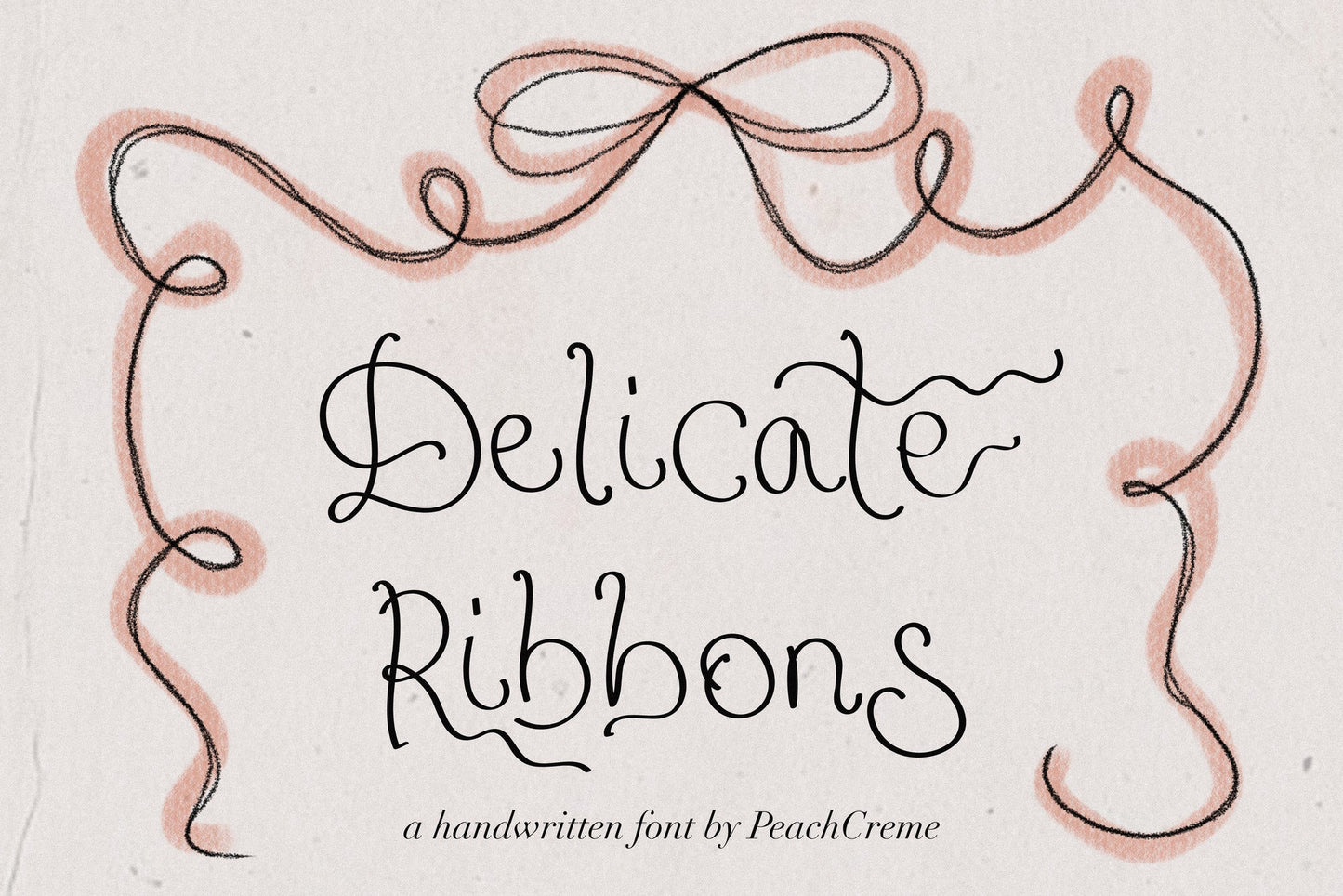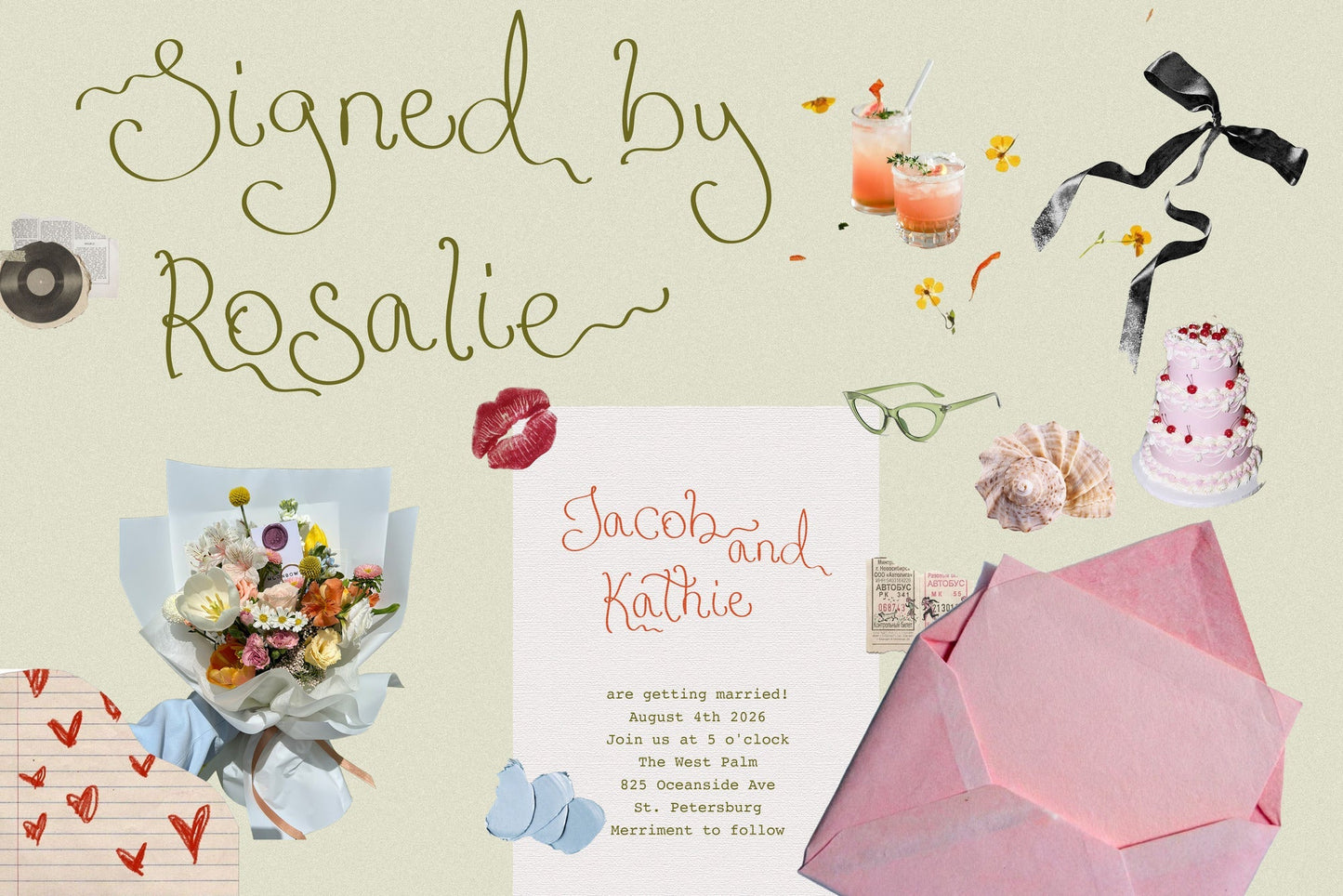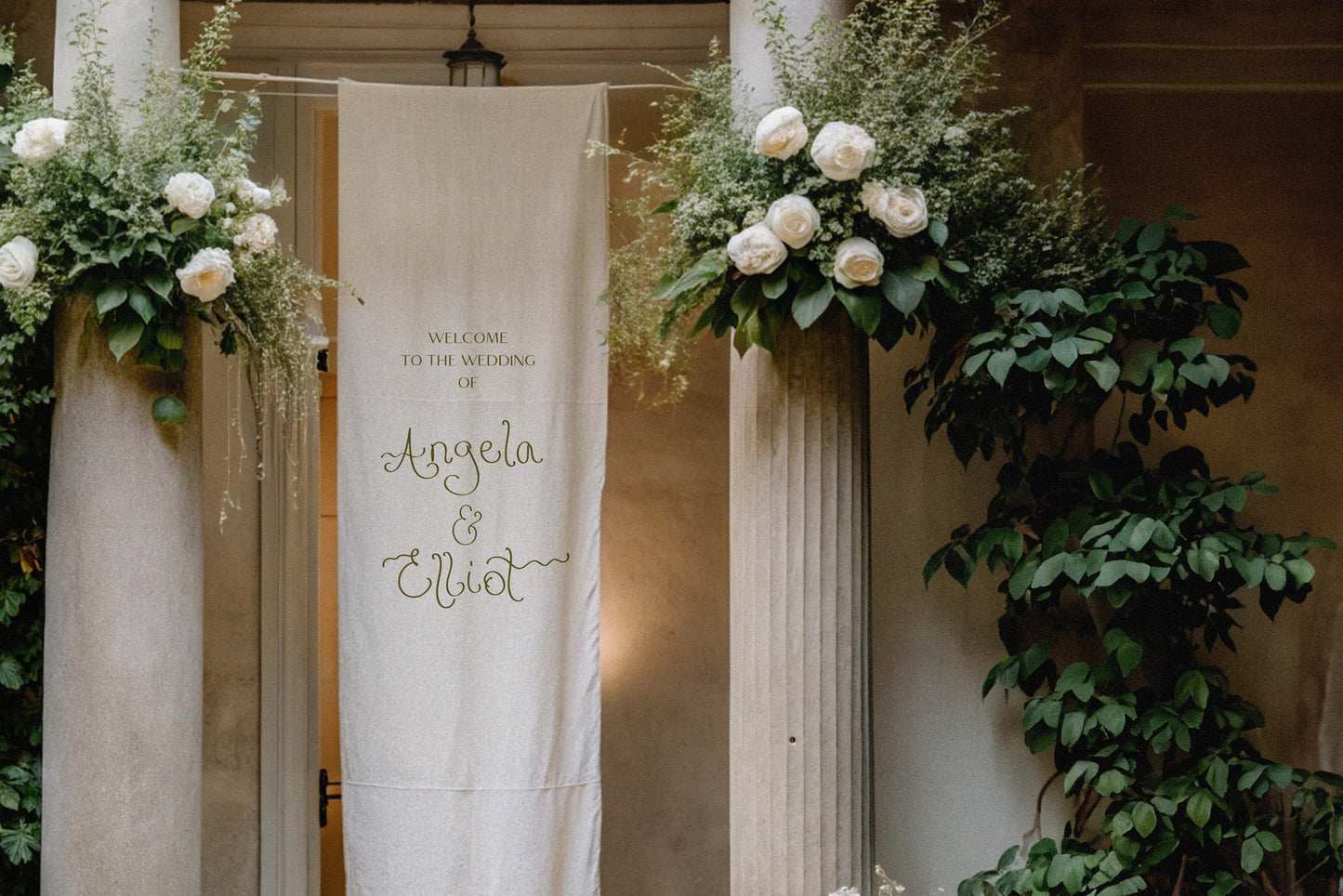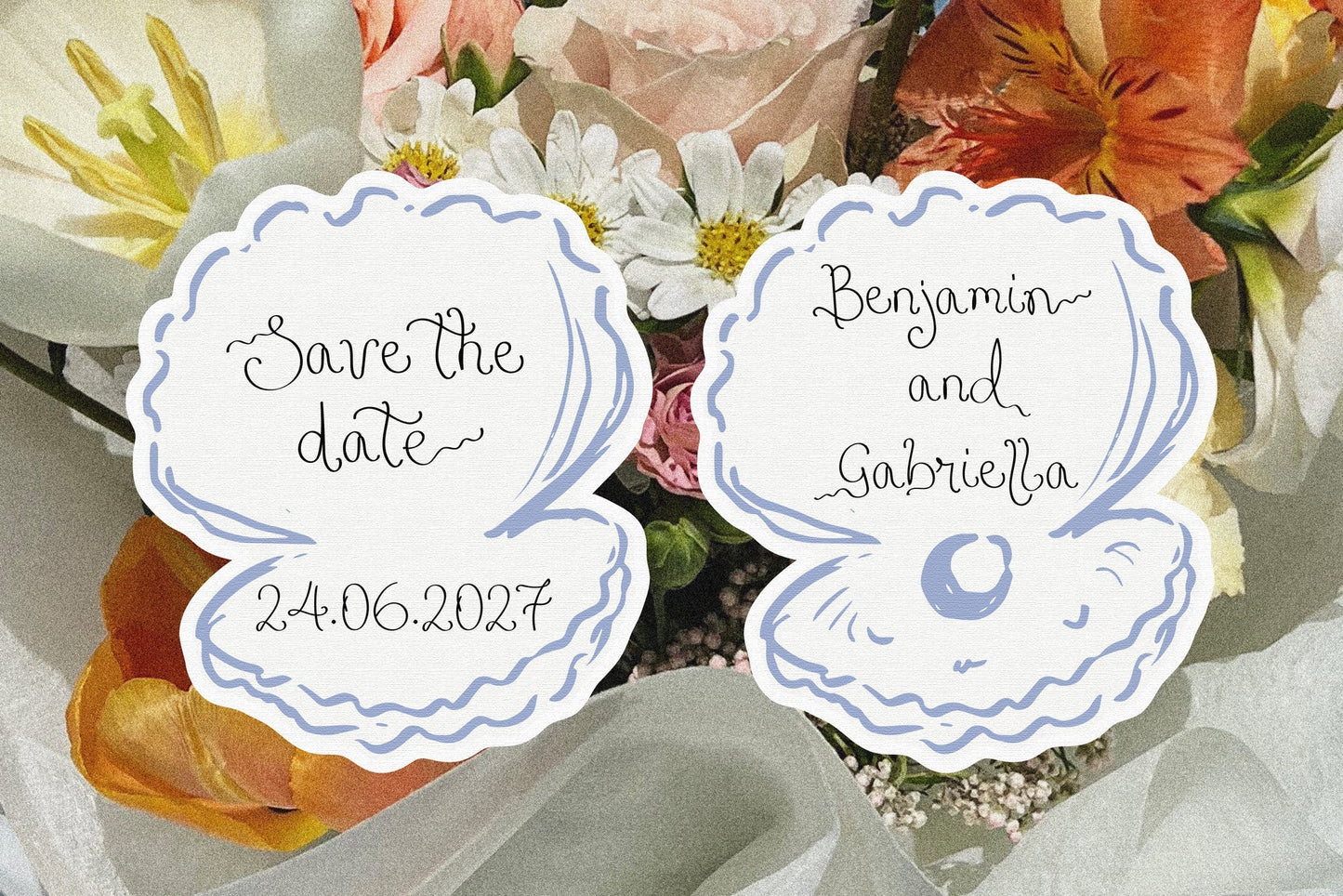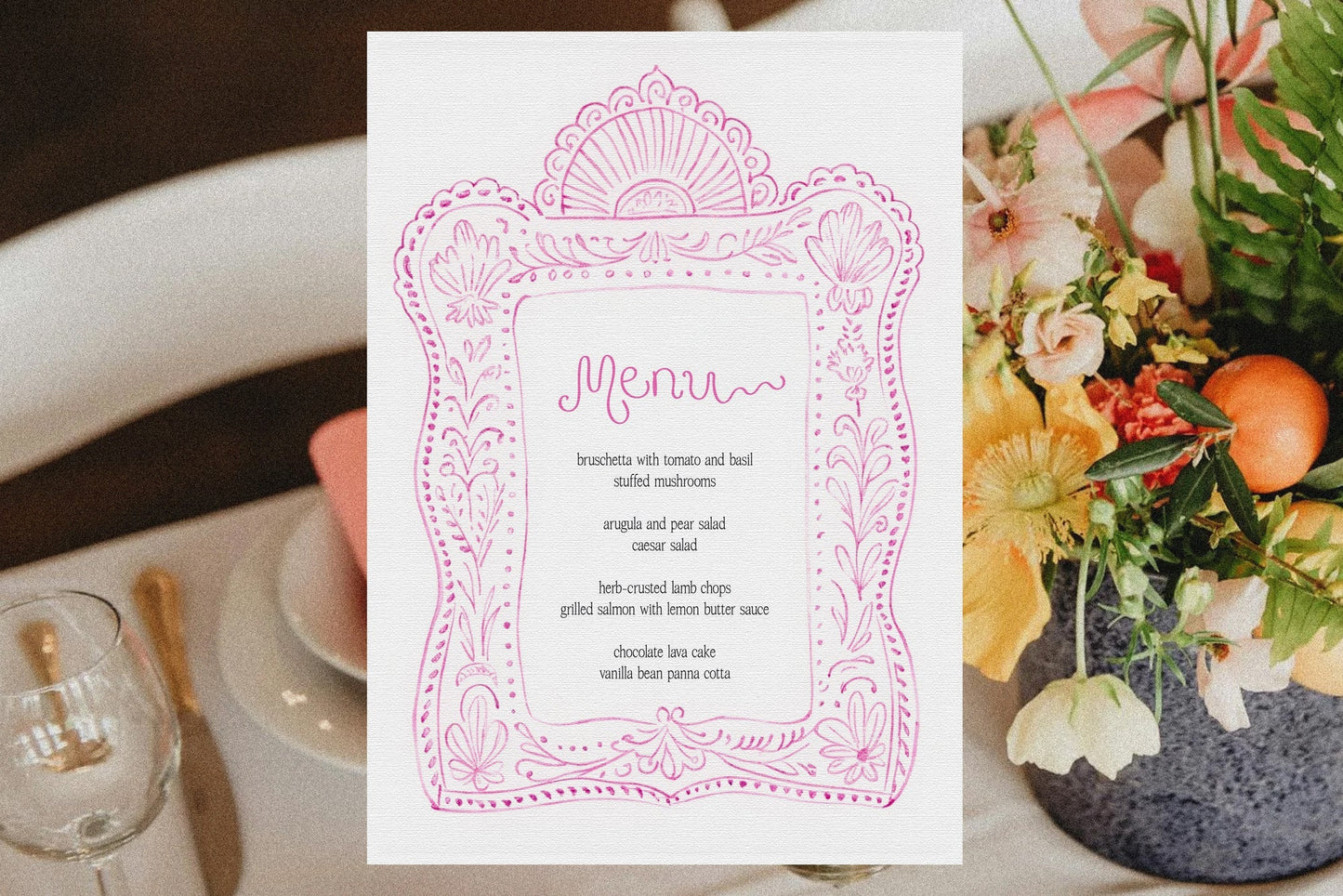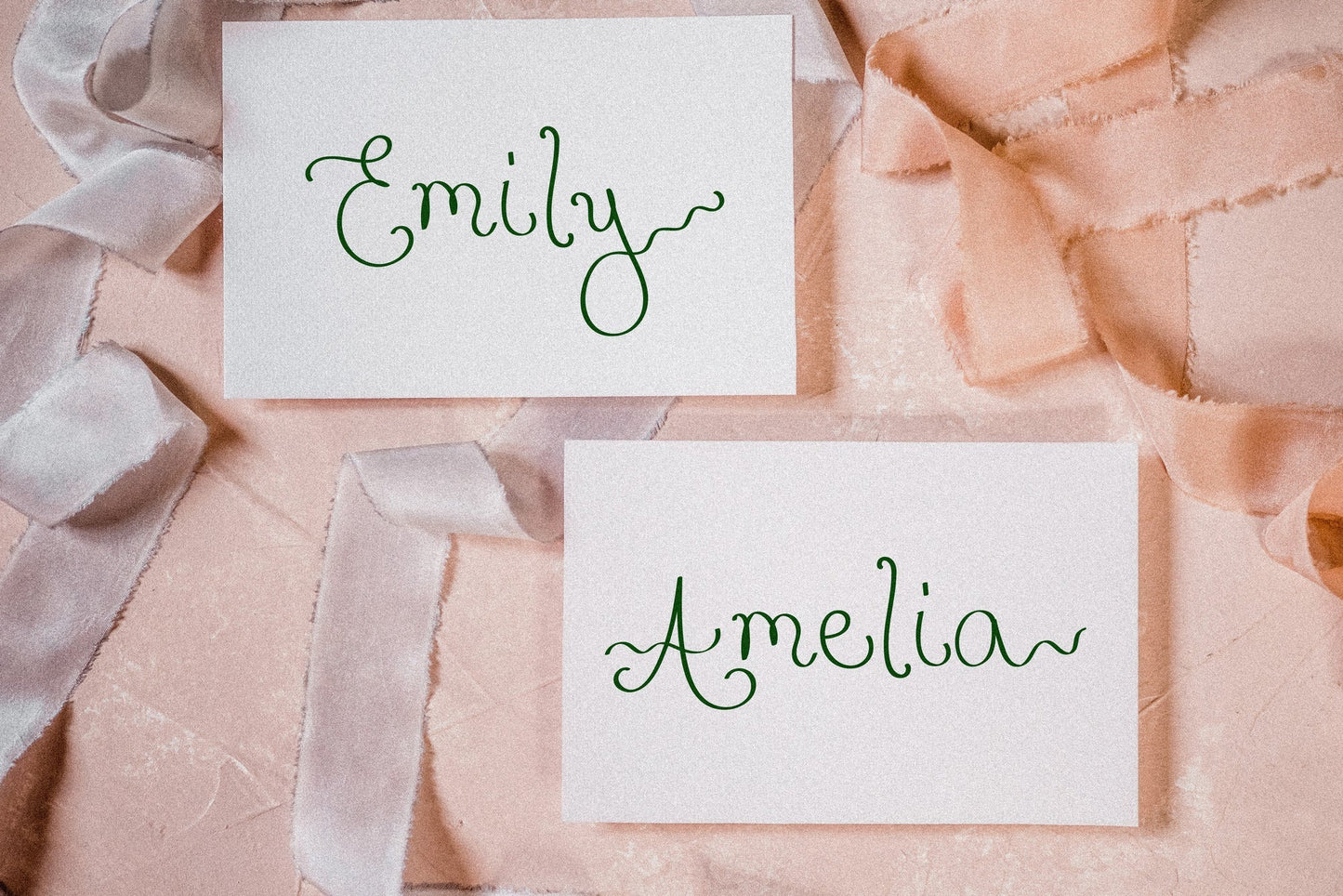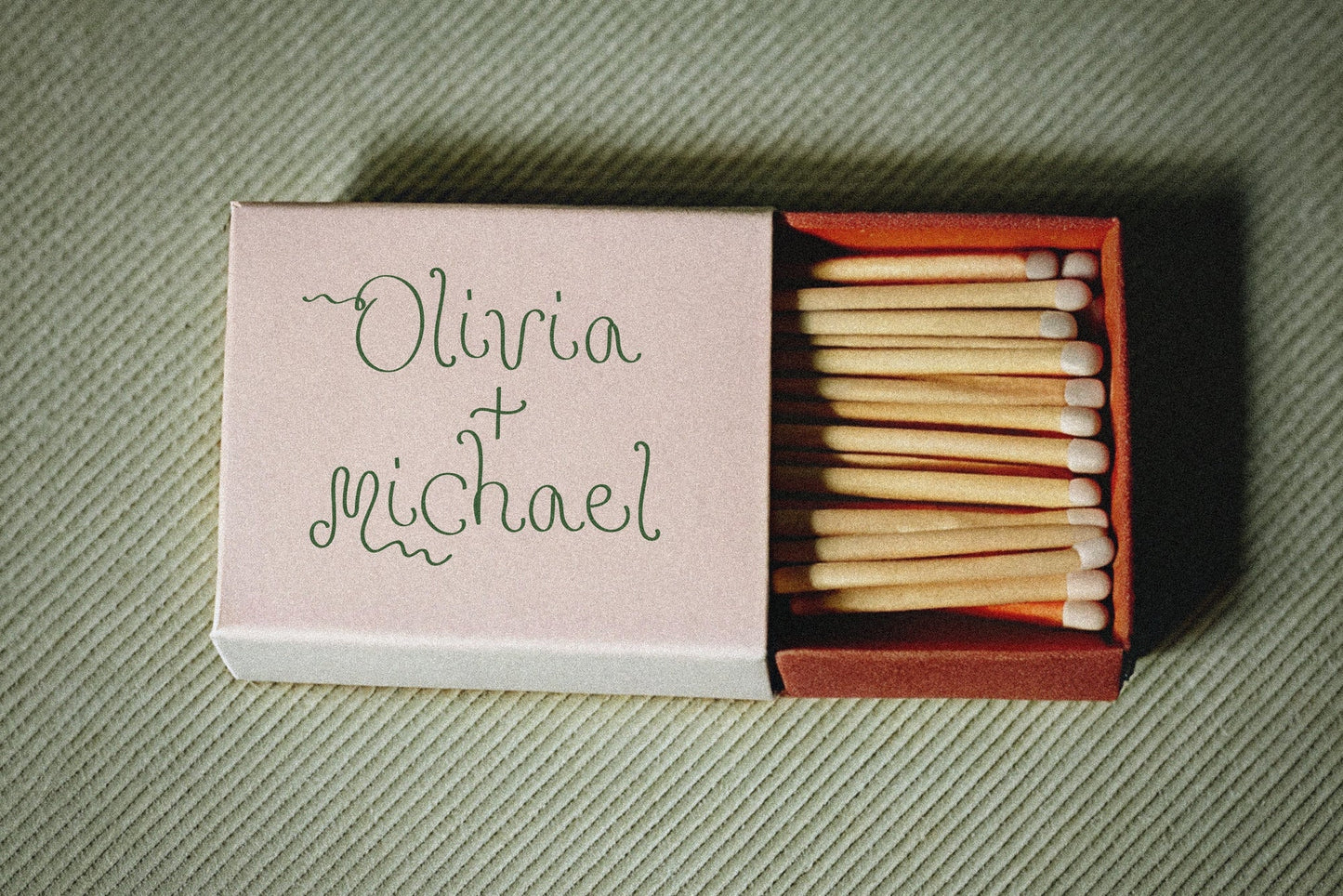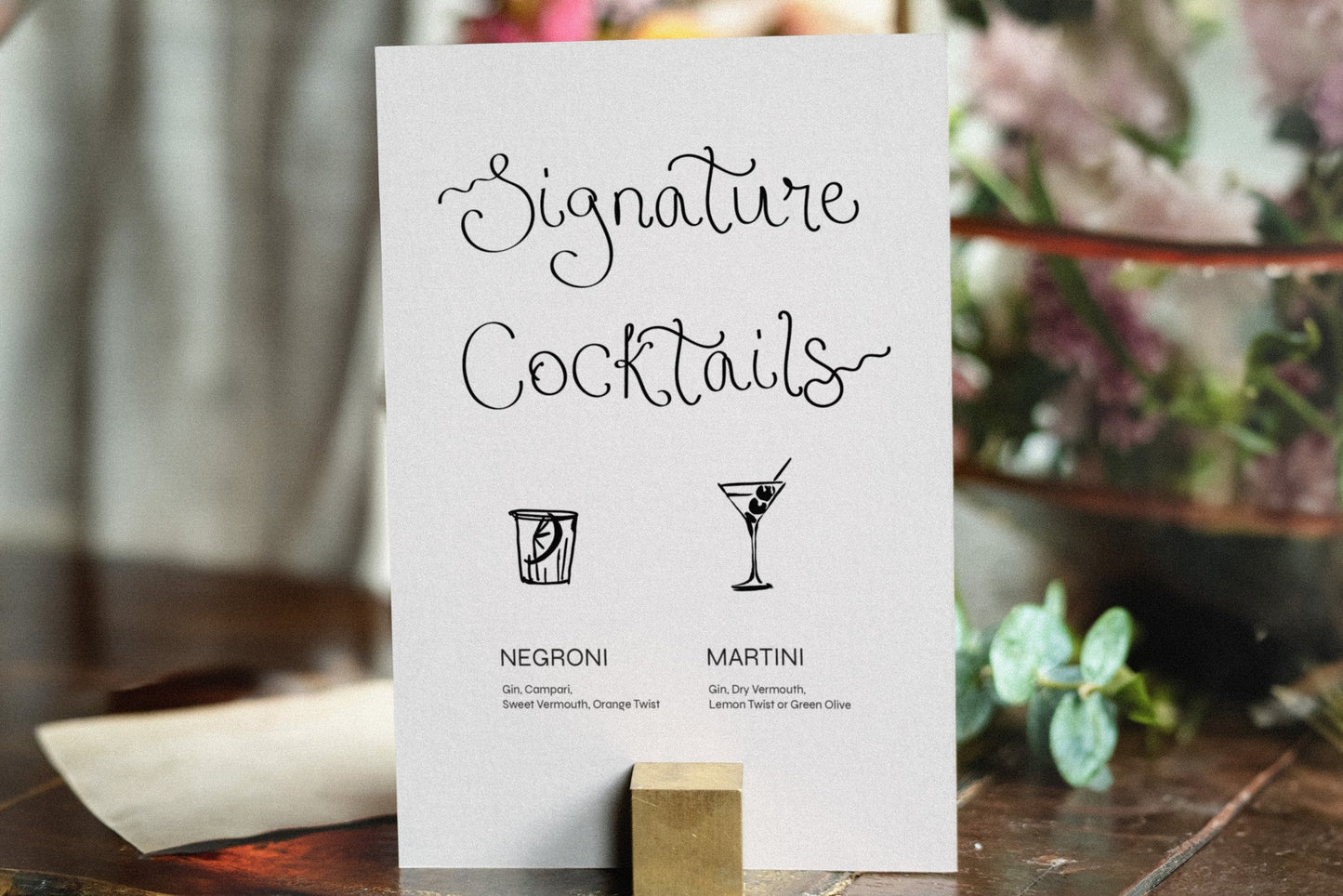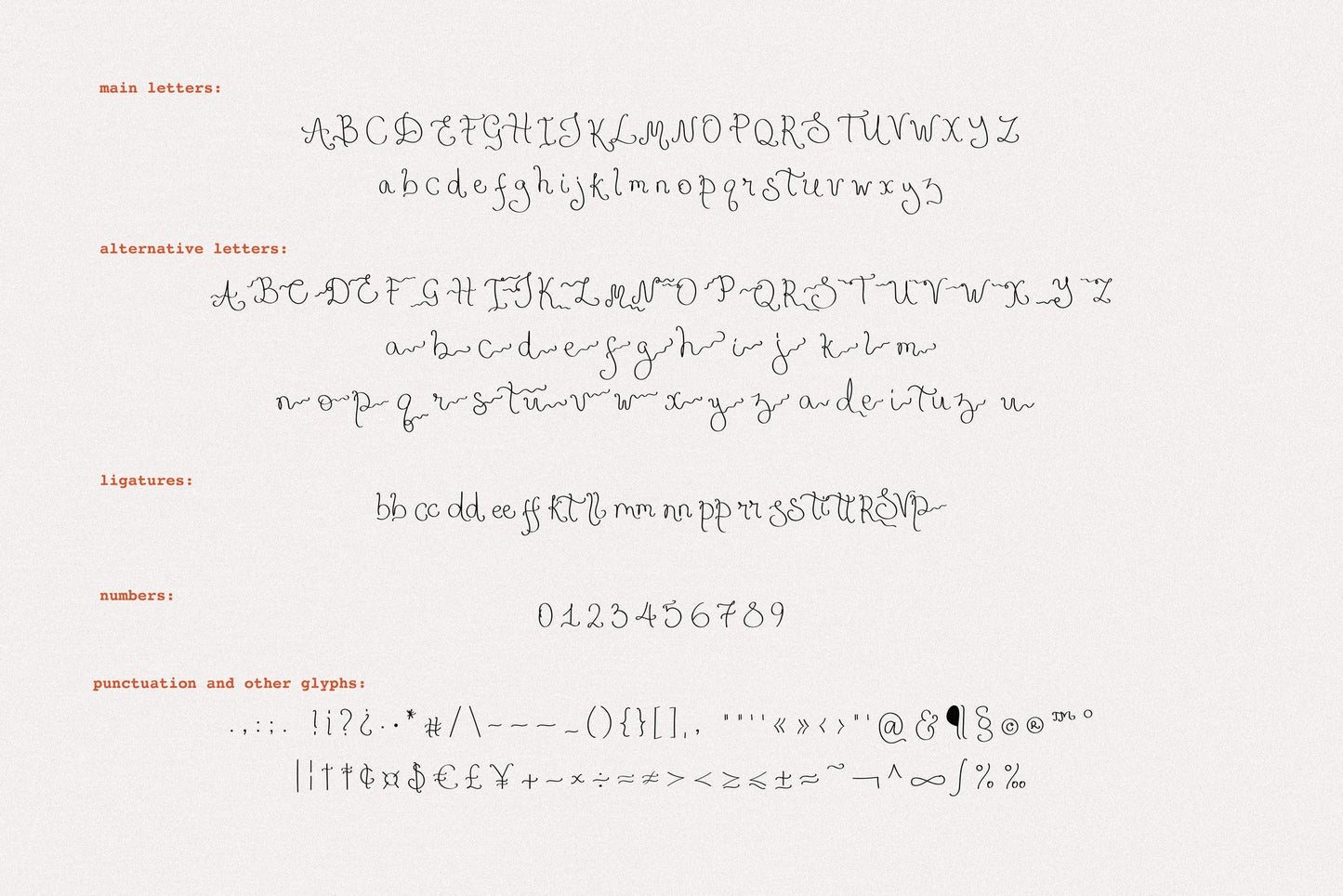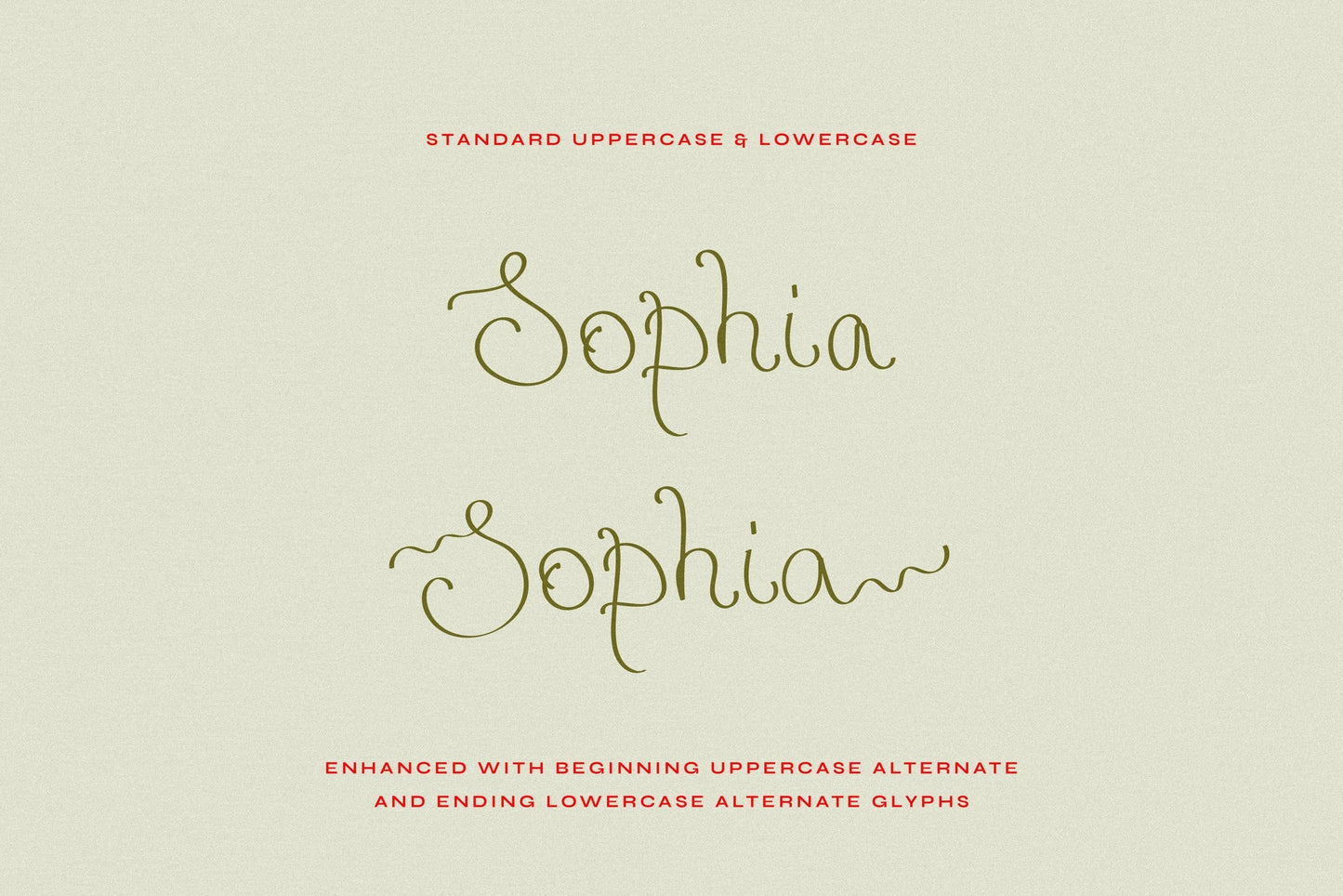
Delicate Ribbons // Quirky Script Font
"Delicate Ribbons" brings a lighthearted, slightly quirky feel to your typography. It features wavy uppercase beginning alternates and wiggly lowercase ending alternates. It’s not a font that tries to be perfect—its charm lies in its subtle irregularities and hand-drawn feel.
This font is ideal for adding a whimsical vibe to wedding stationery, greeting cards, or any project that needs a bit of character without being overly formal.